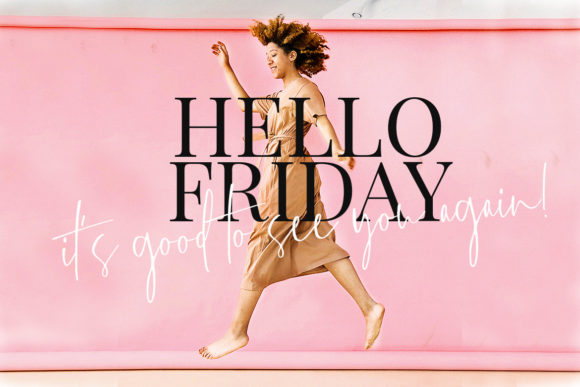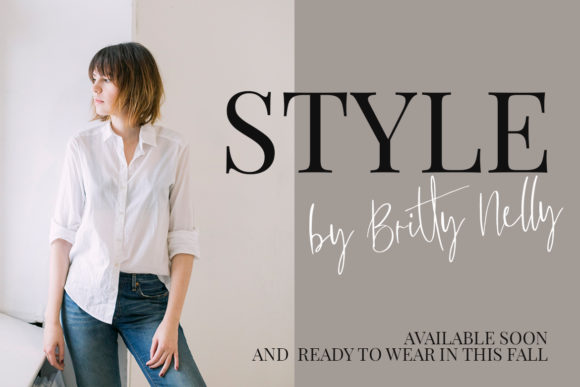
Oklahoma Font
db-ku.com - Script & Handwritten -- The Oklahoma is a stylish handwritten font. It has a modern, yet classy touch and is perfect for adding an elegant feel to your designs.